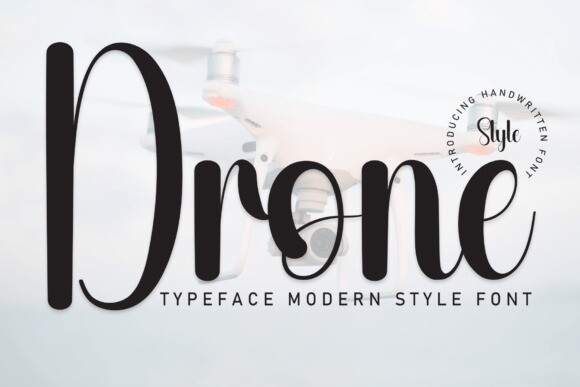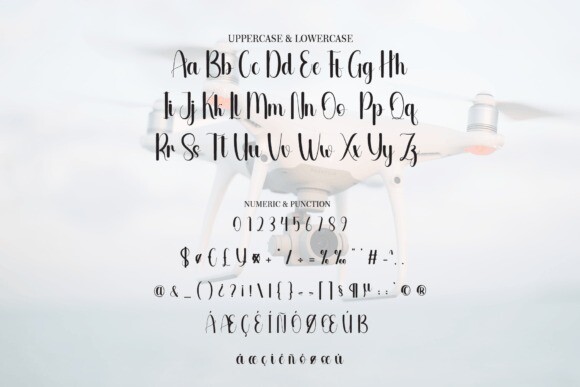
Drone Font
Drone Font is a sweet and friendly handwritten font. Fresh and neat, this font is ideal for writing wedding invitations, cards, or any other design that might need a fun touch!